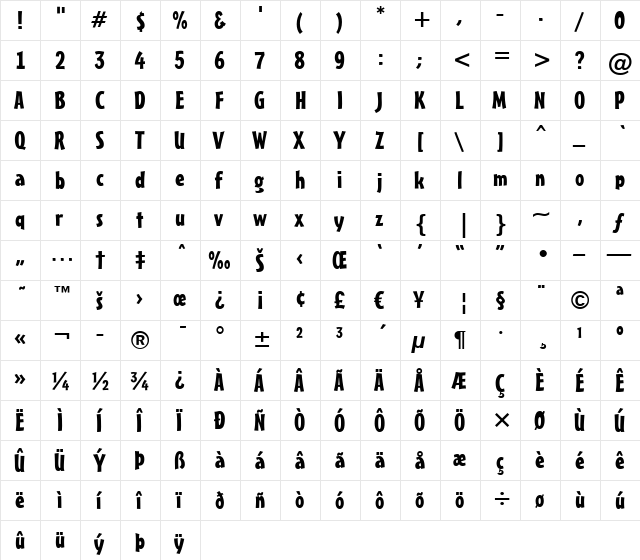
a_Frudger Regular
| Designer | W.Chufarofsky & M.Slutsker |
Design Context for a_Frudger Typeface
a_Frudger offers clean, dependable letterforms without strong stylistic allegiance, making it a practical choice for designers who need flexibility.